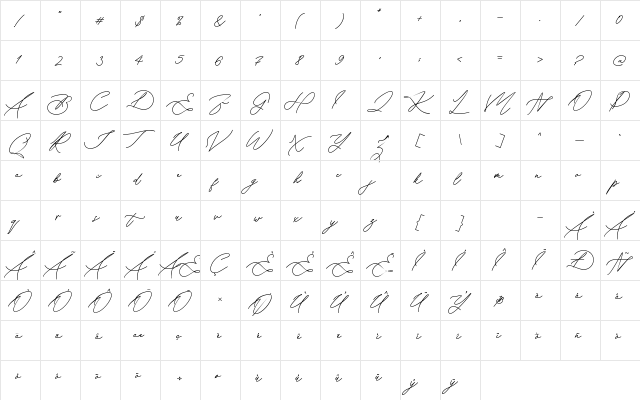
Keraton Regular
| Designer | Letterara 2019 |
Design Context for Keraton Typeface
Keraton is a composed and adaptable typeface that performs quietly and consistently across a wide range of design contexts.